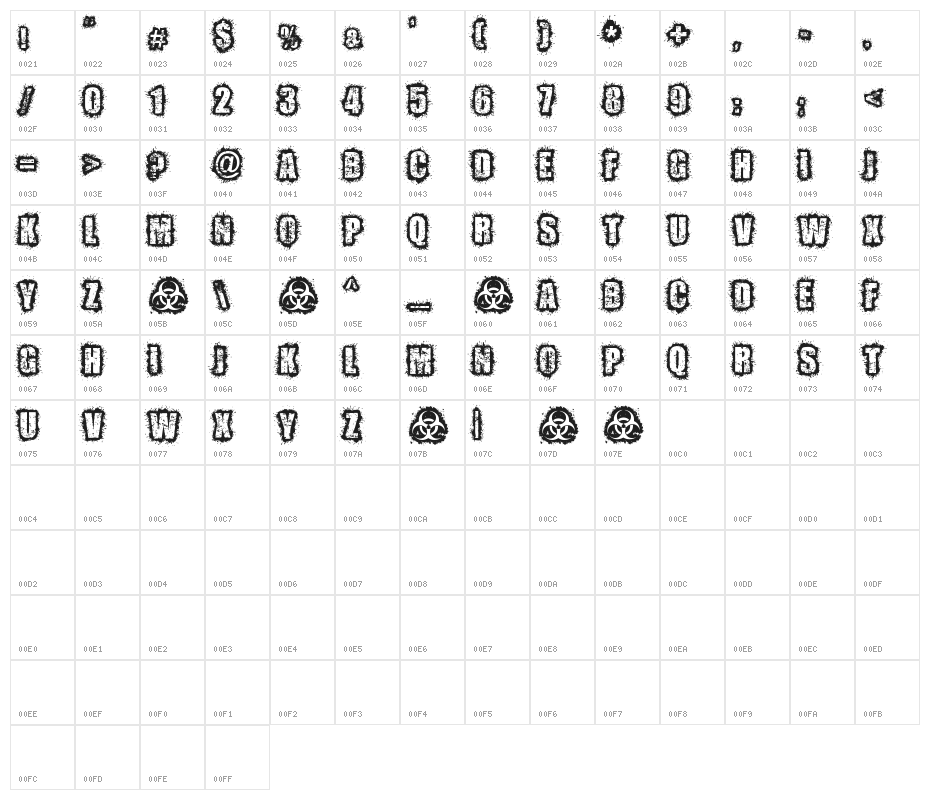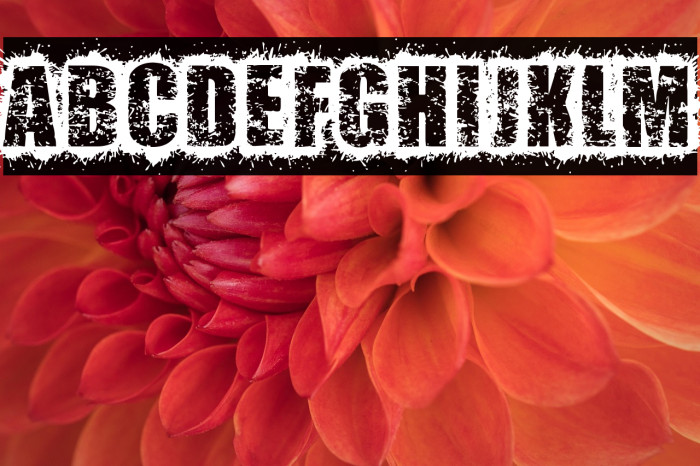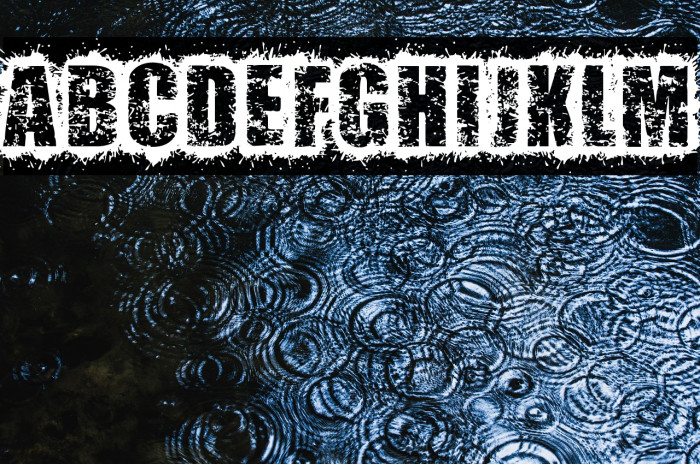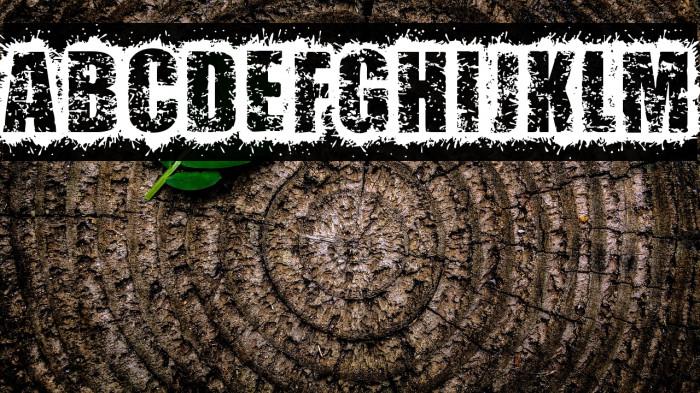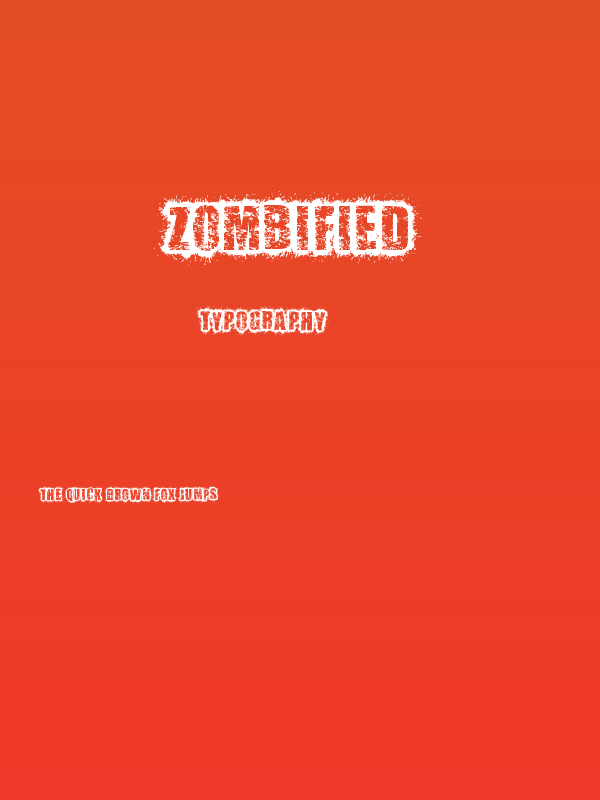
ZOMBIFIED Font
ZOMBIFIED Description
This font features a distressed, grungy texture that gives it a rugged and edgy appearance. The characters are bold and heavily textured, resembling a worn or decayed surface, which adds a dramatic flair to the overall design. The uppercase and lowercase letters, along with numbers and special characters, maintain a consistent style that is both eye-catching and impactful. The rough edges and uneven strokes contribute to its unique, rebellious aesthetic, making it ideal for projects that require a bold statement.
| Overall Style | Grunge, Edgy, Distressed |
| Use Case | Headlines, Posters, Logos |
| Proposed Projects | Ideal for horror-themed designs, music album covers, posters, and any project needing a gritty, bold statement. |